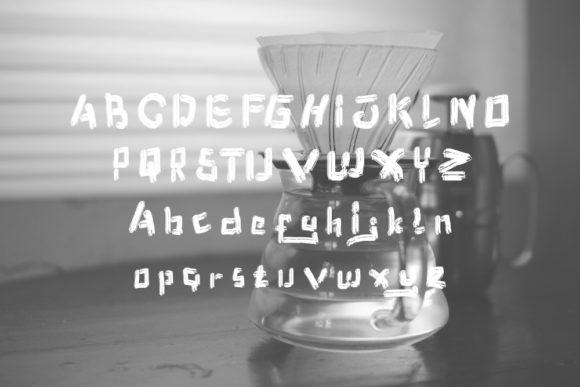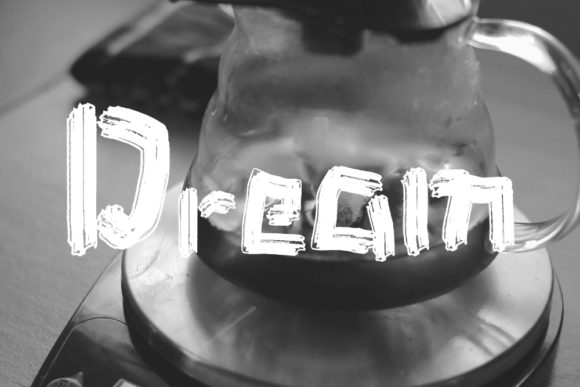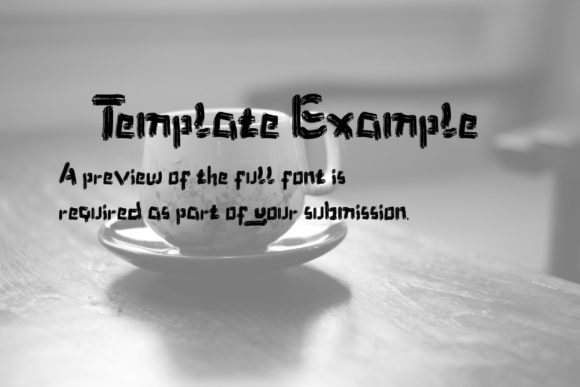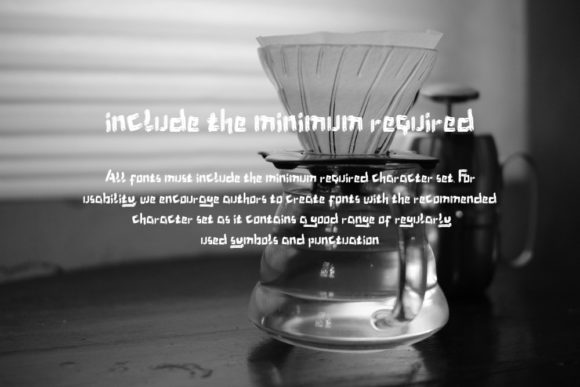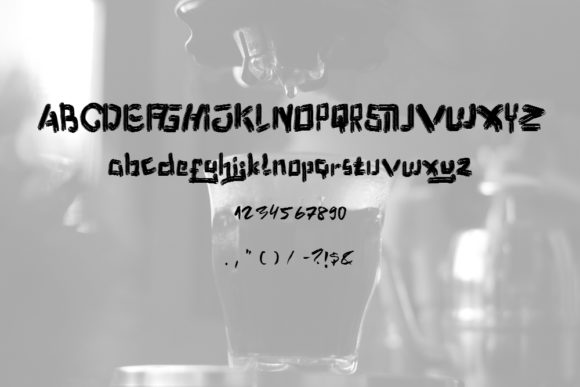
Introduction to Mudeva Font
Mudeva is an incredibly interesting display font, created with the help of a unique brush pen.
Add it to your projects and notice how it makes them stand out .
Key Features of Mudeva Font
Why Choose Mudeva Font?
Mudeva Font offers exceptional quality and versatility, making it a valuable addition to your design toolkit. Whether you’re creating for personal projects or commercial use, Mudeva Font delivers professional results.